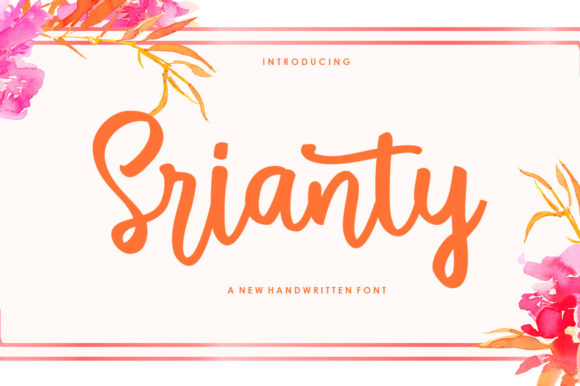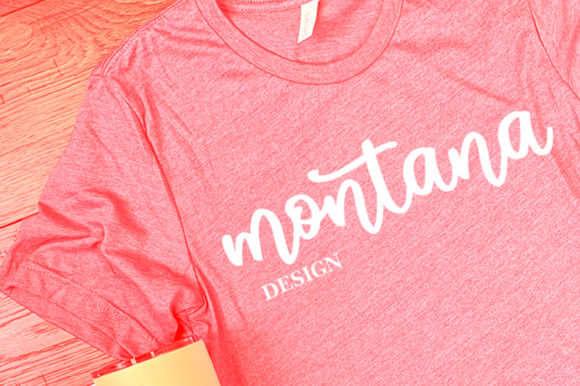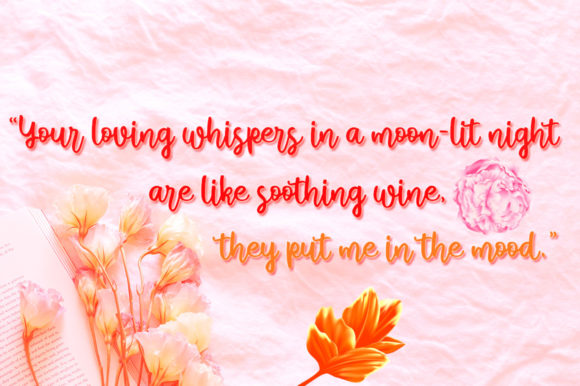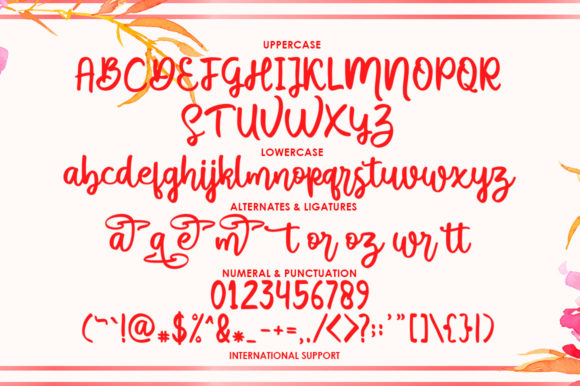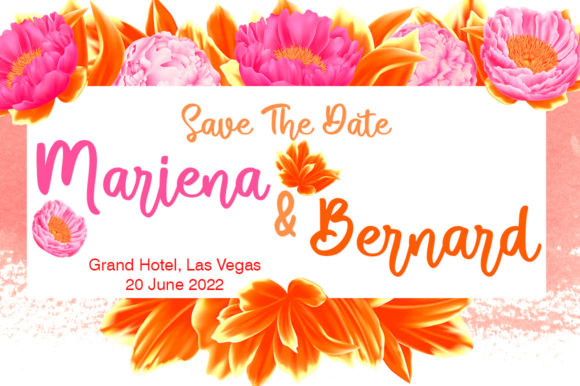
Srianty Script Font
About Srianty Script Font
Srianty Script is an elegant handwritten font. This font is perfect for creating modern designs like ads, logos, branding, quotes, poster, wedding invitation and more. Srianty Script is PUA encoded which means you can access all of the glyphs and swashes with ease!